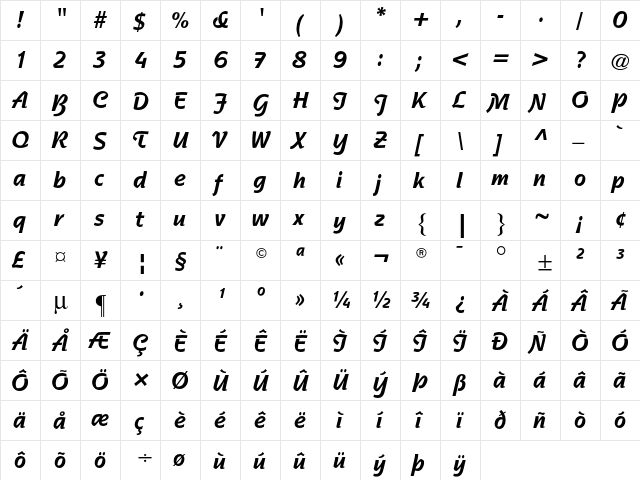
Nadianne AT Bold Condensed Regular
Design Context for Nadianne AT Bold Condensed Typeface
Nadianne AT Bold Condensed is a composed and adaptable typeface that performs quietly and consistently across a wide range of design contexts. The heavy weight commands attention and anchors typographic hierarchies. The condensed width makes it efficient for tight spaces without sacrificing legibility.